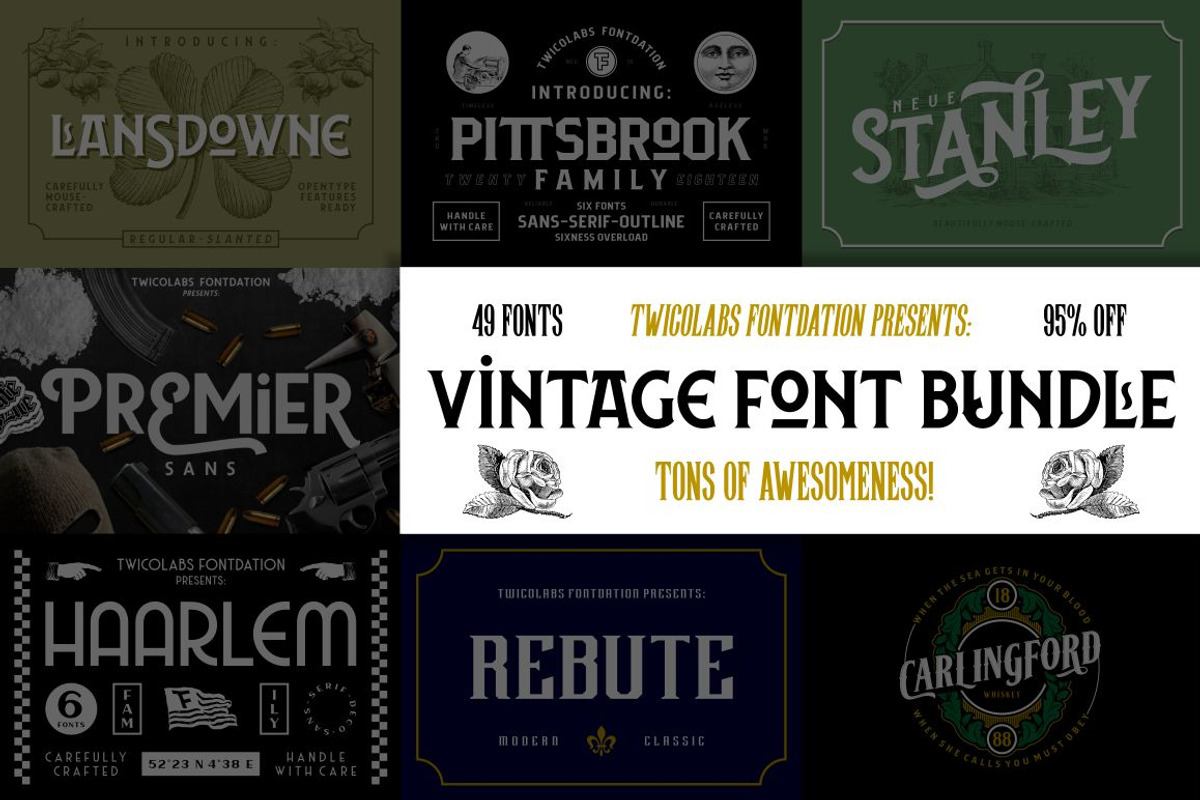
Vintage Font Bundle | 49 Fonts in 1 Free Download is a comprehensive collection of 49 unique fonts designed with a retro, classic, and timeless appeal. This bundle includes a variety of serif, sans-serif, script, and display fonts, offering versatility for all your vintage-themed design projects. Perfect for branding, logos, posters, packaging, social media graphics, and more, this bundle covers all your typographic needs.
With this extensive collection, you can experiment with different styles and combinations to create authentic, nostalgic, and eye-catching designs. Whether you're working on a retro brand, a vintage advertisement, or a creative event, this font bundle provides a wealth of options for your typography.